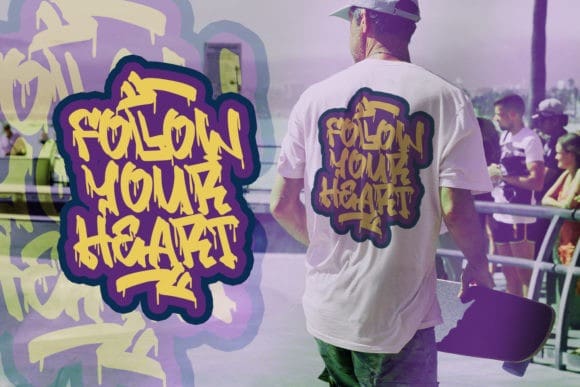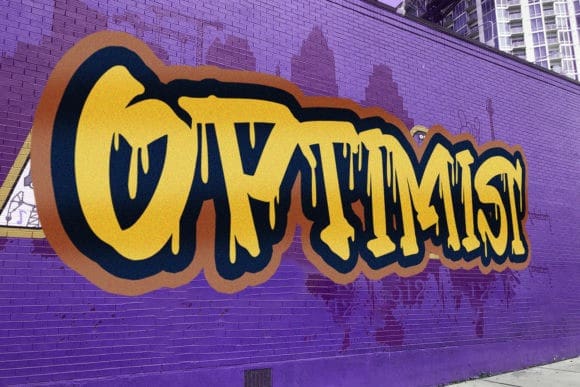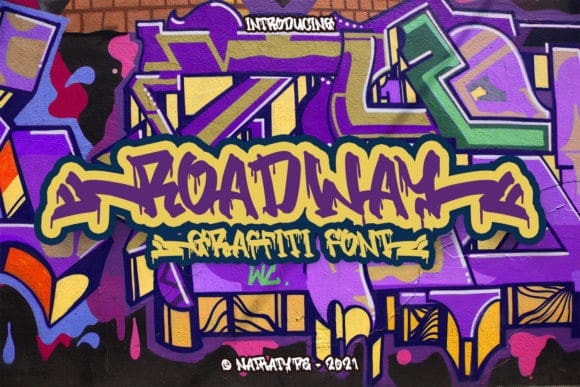
Roadway Display Font
Roadway Display Font is a creepy, graffiti styled display font, that features a street art vibe. This font is suitable for designs like jerseys, sportswear, skateboard and more.